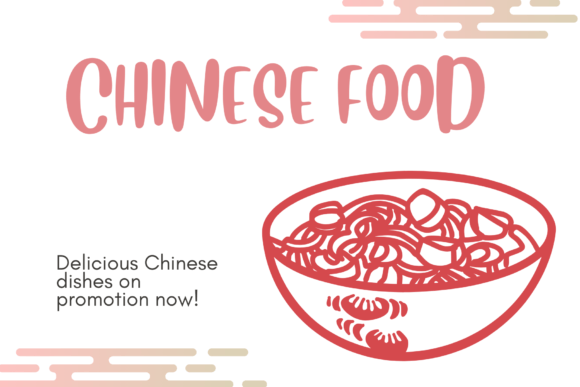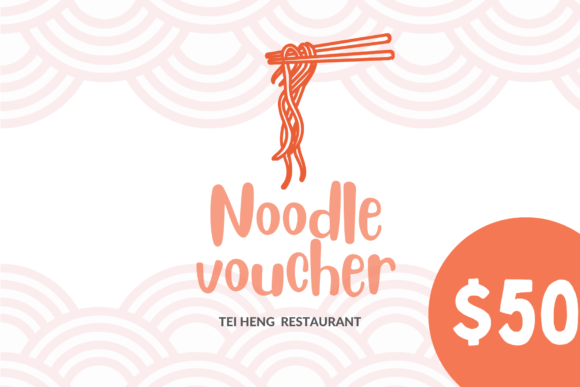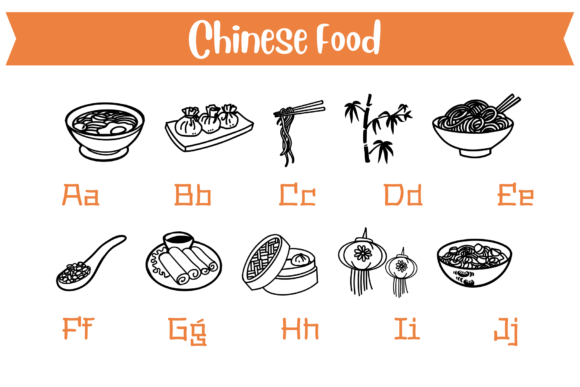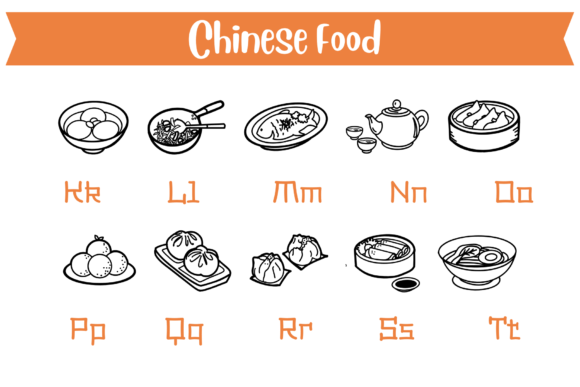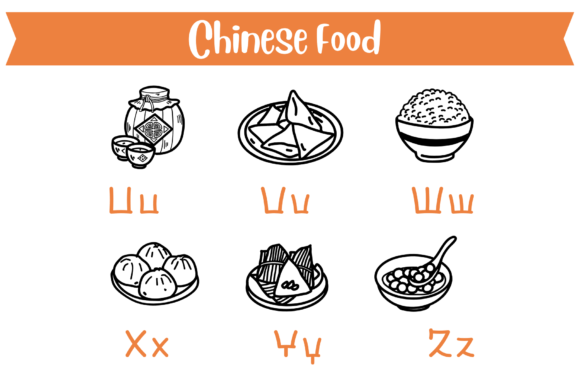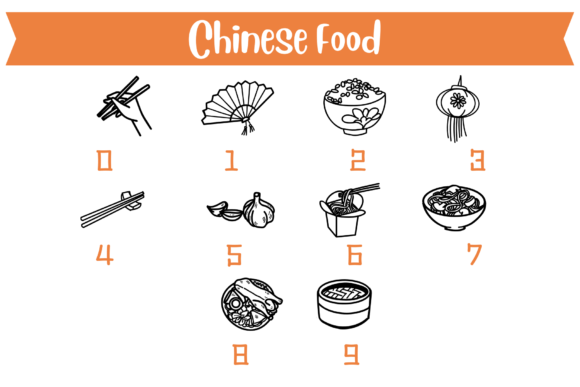
Introduction to Chinese Food Doodle Font
As a designer, have you ever been working on a creative project, pouring your heart and soul into it, only to realize that something’s missing? That’s when you need a little extra magic to take your design to the next level. For many of us, it’s the perfect font that makes all the difference.
That’s where the Chinese Food Doodle Font comes in – a delightful and high-quality line art illustration font that’s sure to elevate any design project. With its delicate and intricate design, this font is perfect for adding a touch of whimsy and personality to your work. And the best part? It’s a free download, making it an accessible design resource for creatives of all levels.
Key Features of Chinese Food Doodle Font
- High-quality vector design with a transparent background for seamless integration into any creative project.
- Unique and playful design, perfect for adding a touch of whimsy to any design resource, such as menus, packaging, or advertisements.
- Perfect for designers, artists, and businesses looking for a fun and creative way to add a Chinese food theme to their design resource.
Honest Review: Chinese Food Doodle Font
I recently stumbled upon the Chinese Food Doodle Font, and I must say it’s a delightful addition to any design project. The font itself is a high-quality, hand-drawn representation of various Chinese dishes, making it perfect for creative projects that require a touch of cultural authenticity.
One of the standout features of this font is its transparent background, which allows designers to easily place the font on top of images or backgrounds without worrying about distracting edges or outlines. This makes it an ideal design resource for anyone working on a project that requires a seamless integration of text and visuals.
- High-quality, hand-drawn design
- Transparent background for easy text placement
- Perfect for creative projects that require cultural authenticity
- Only suitable for projects that require a specific Chinese food theme
- May not be suitable for projects that require a more minimalist or modern design aesthetic
Overall, I’m impressed with the Chinese Food Doodle Font, and I think it’s a great addition to any designer’s toolkit. It’s perfect for creative projects that require a touch of cultural flair, and the free download makes it an accessible design resource for anyone.
To get the most out of the Chinese Food Doodle Font, try using it in combination with other design elements, such as images and graphics. Experiment with different font sizes and colors to add visual interest to your design. You can also use the font to create a consistent brand identity for your business or personal project.
The Chinese Food Doodle Font is perfect for a variety of use cases, including menu design, food blog graphics, and restaurant branding. You can also use it in social media posts, flyers, and brochures to add a touch of creativity to your design.